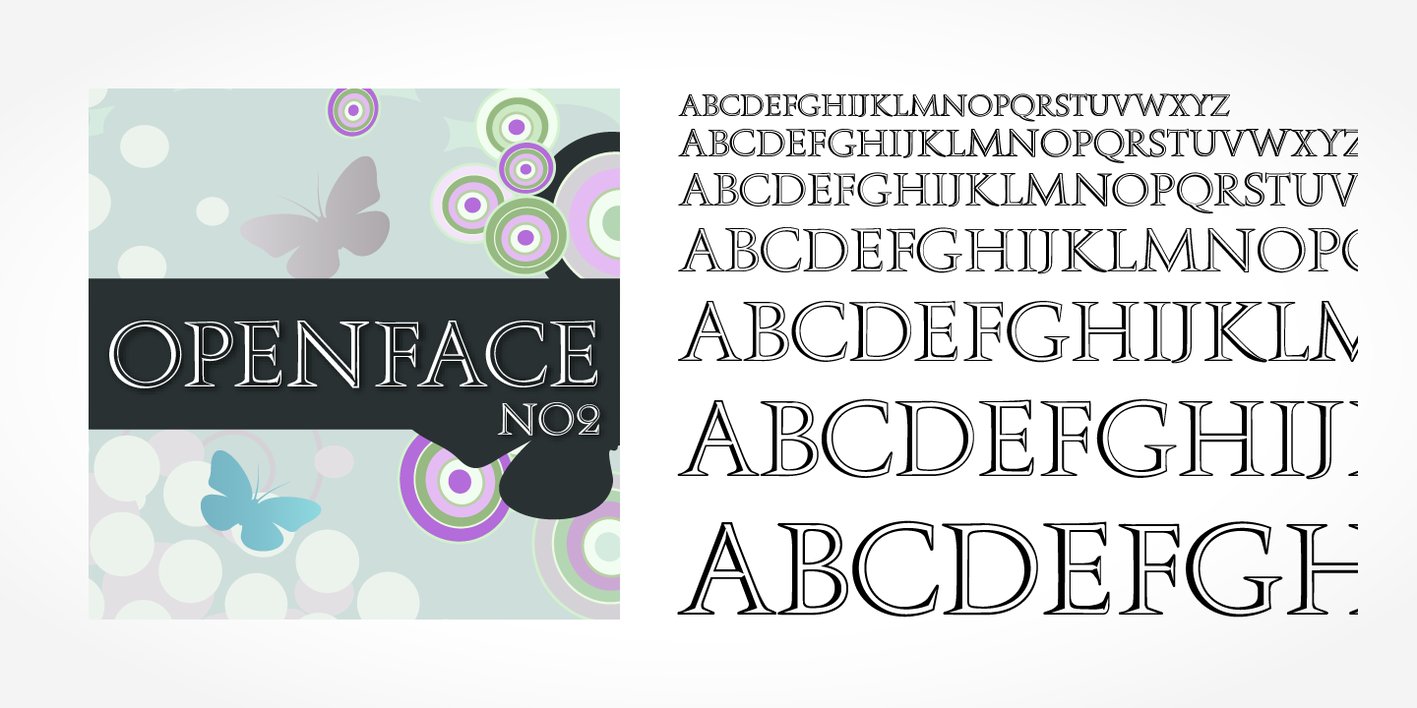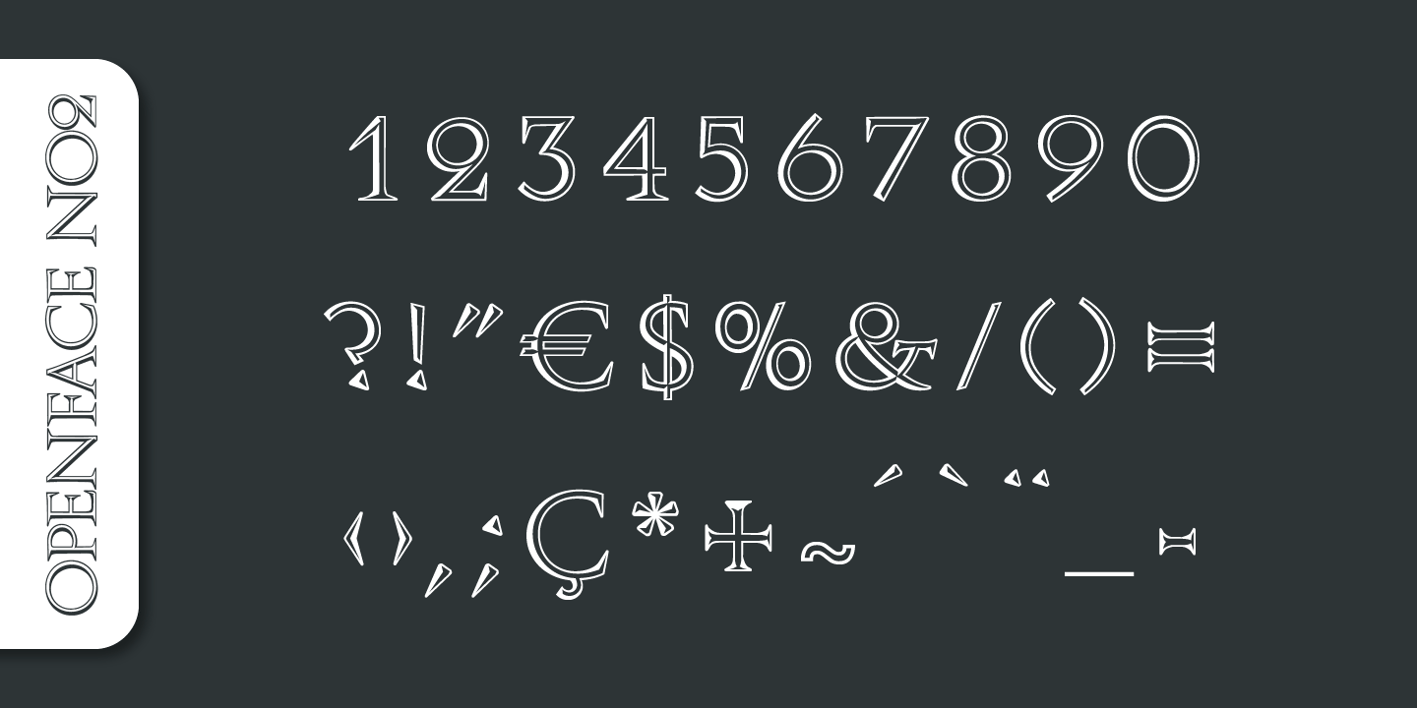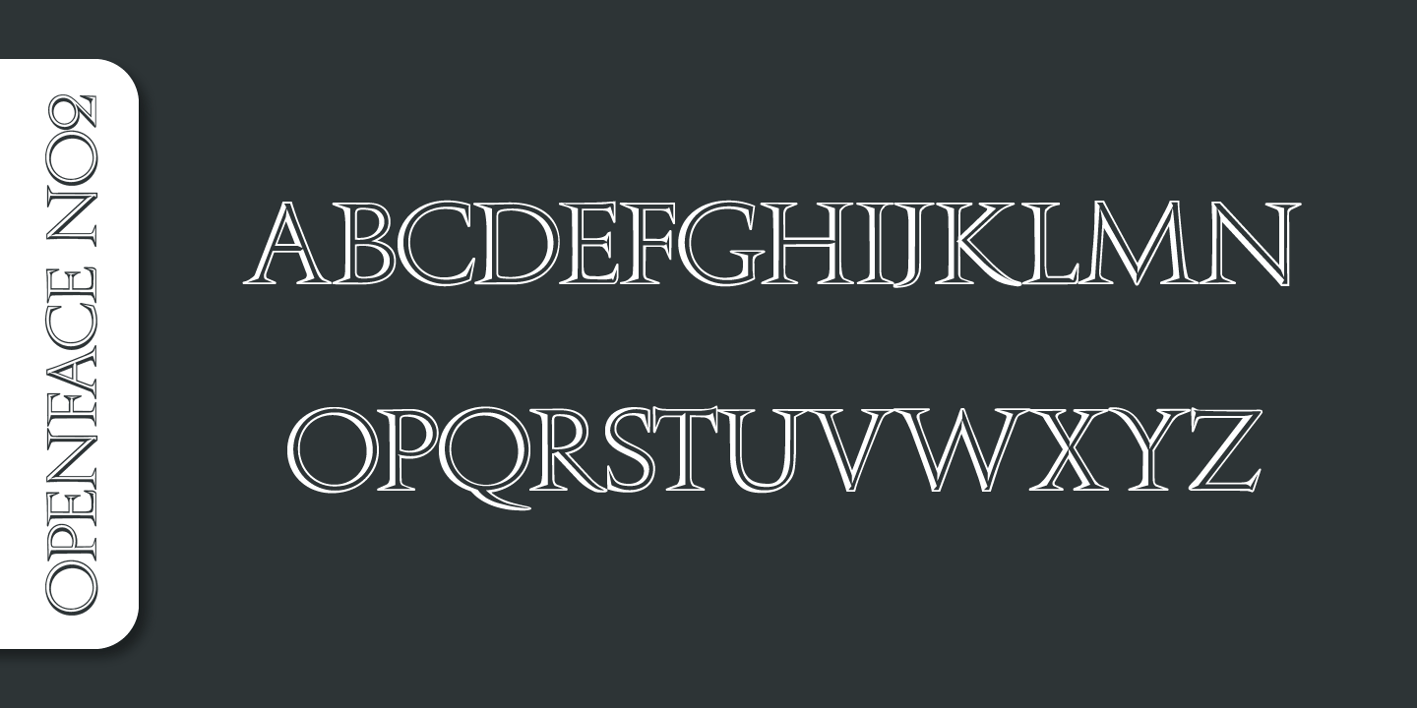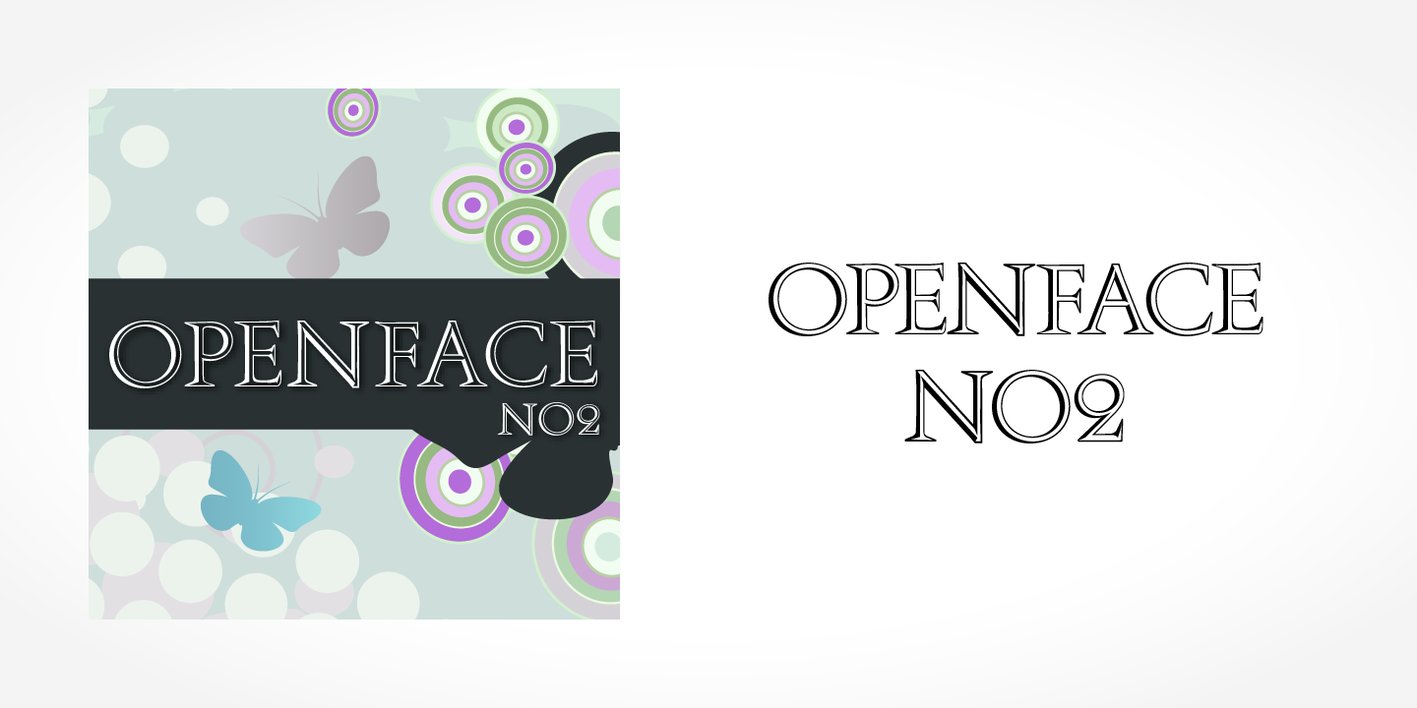
Openface No2 Font
Openface No2 Font is ideal for vintage poster designs, retro branding projects, classic signage, Western movie titles, steampunk artwork, antique shop logos, bourbon whiskey labels, barbershop signage, old-fashioned restaurant menus, and nostalgic advertising campaigns. This distinctive typeface brings authentic period charm to any creative project.
Openface No2 Font is exciting because it perfectly captures the spirit of 19th-century American typography with its bold, outlined letterforms and distinctive shadow effects. Its authentic vintage character instantly transports viewers to the golden age of hand-painted signs and classic advertising, creating powerful nostalgic connections.
The Openface No2 Font family includes Regular weight with outlined variations, shadow effects, solid fill options, and decorative border elements that enhance the vintage aesthetic, providing designers with comprehensive tools for creating authentic period-style typography compositions.
Design professionals appreciate Openface No2 Font for its remarkable ability to evoke specific time periods and cultural associations through carefully preserved typographic details. The font's distinctive outlined structure and three-dimensional appearance create exceptional visual impact in both large format applications and detailed design work, making it perfect for projects demanding historical authenticity.
The versatility of Openface No2 Font extends across various creative applications, from craft beer packaging to vintage-inspired fashion branding. Creative teams working on Western themes, steampunk projects, or Americana designs find this font particularly effective for establishing immediate visual connections with historical periods and cultural movements.
For designers seeking to create authentic vintage experiences, Openface No2 Font delivers unparalleled period accuracy and visual charm. Its timeless appeal and historical significance make it an invaluable resource for projects that celebrate American typography heritage and traditional craftsmanship values.